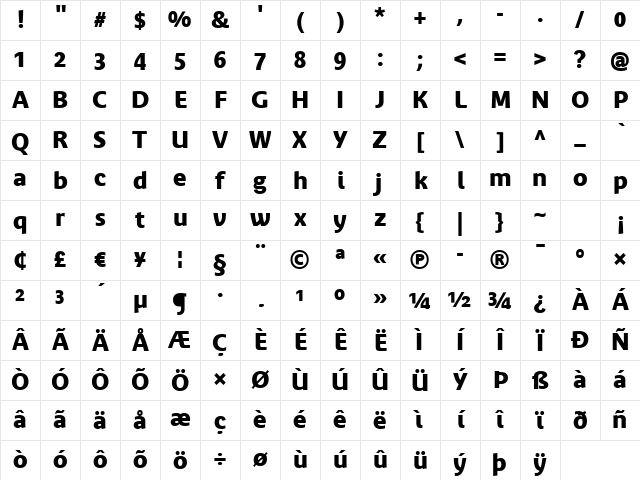
BienvenueBeta is a composed and adaptable typeface that performs quietly and consistently across a wide range of design contexts. Its bold stroke weight gives it real presence on the page.
Who designed the BienvenueBeta Bold font?
This font was published by designed by Jean-Francois Porchez, Porchez Typofonderie for France Telecom. Check the technical specs section for copyright and designer details.